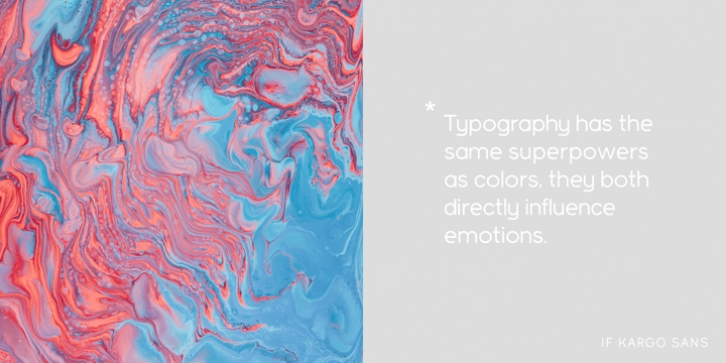
IF Kargo Sans Font Family was designed by Georgios Chalkidis, and and published by iframe. IF Kargo Sans contains 10 styles and family package options.
IF Kargo Sans
Clean and Highly Professional. This sans serif typeface includes nine (9) weights and variable format. Aims to serve a wide variety of graphic styles, branding, logotype, packaging, ecommerce in modern way.
9 weights
Variable
Upper / lower case, numbers, punctuation
Language support: Latin and Greek